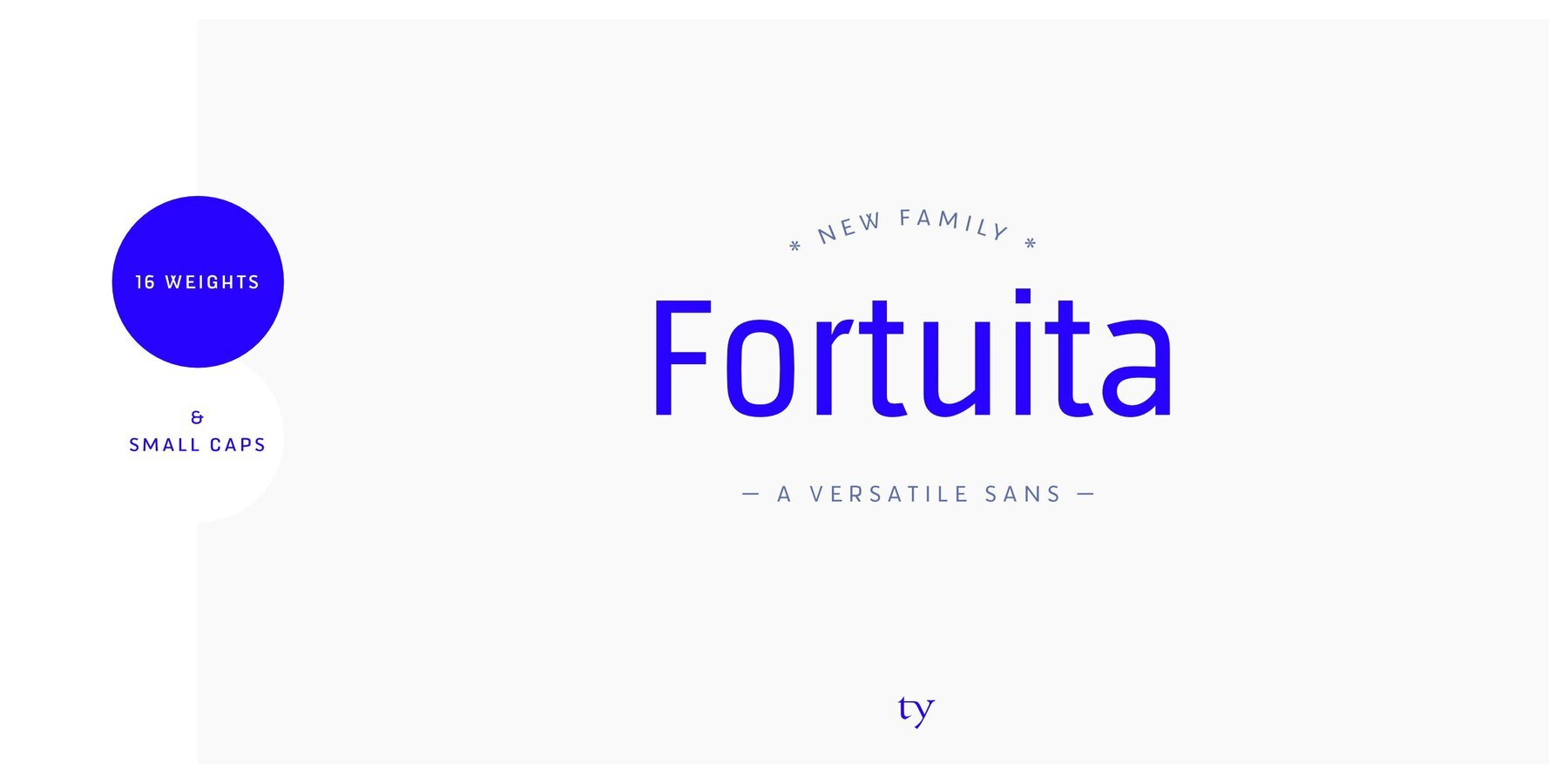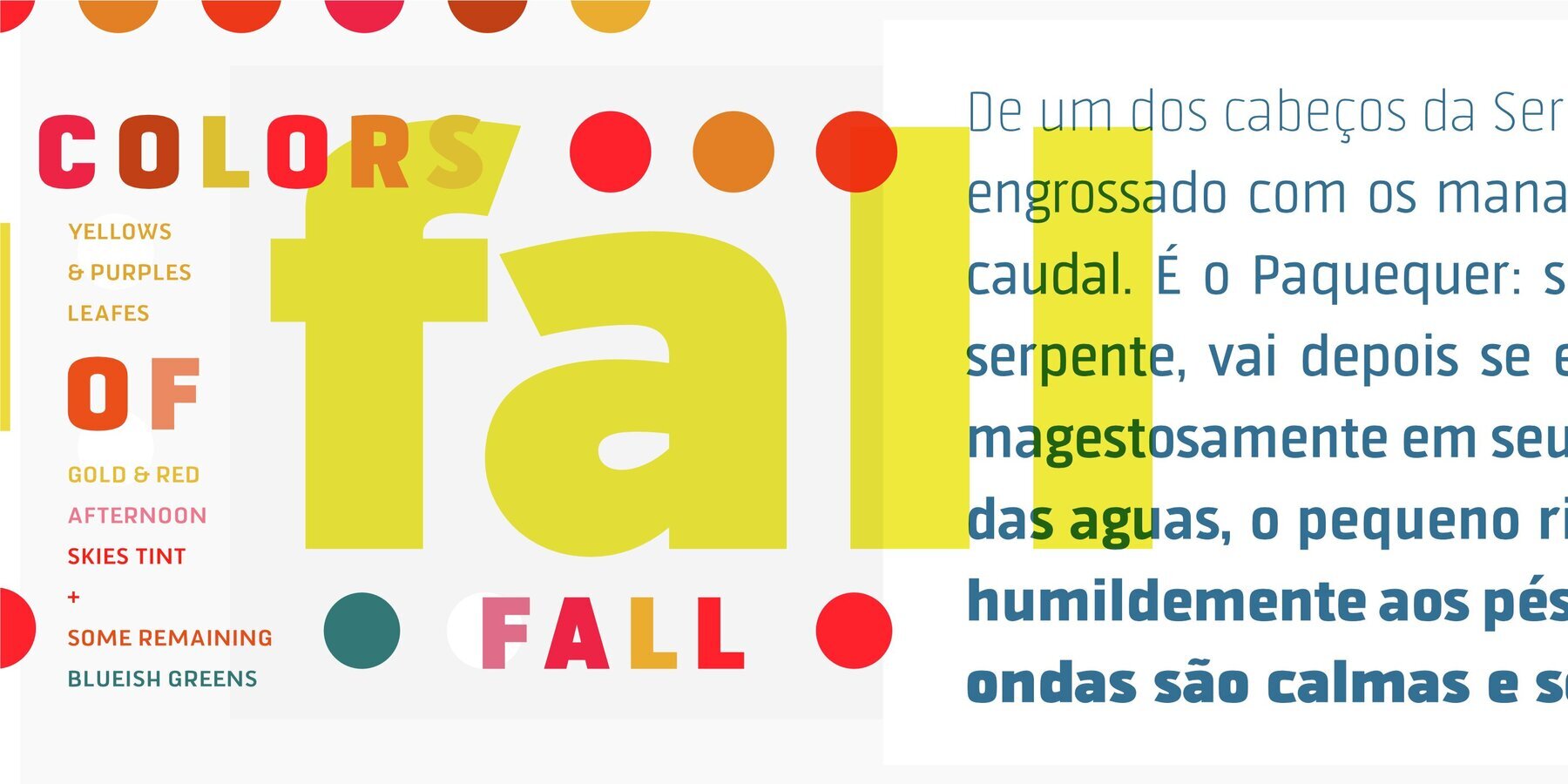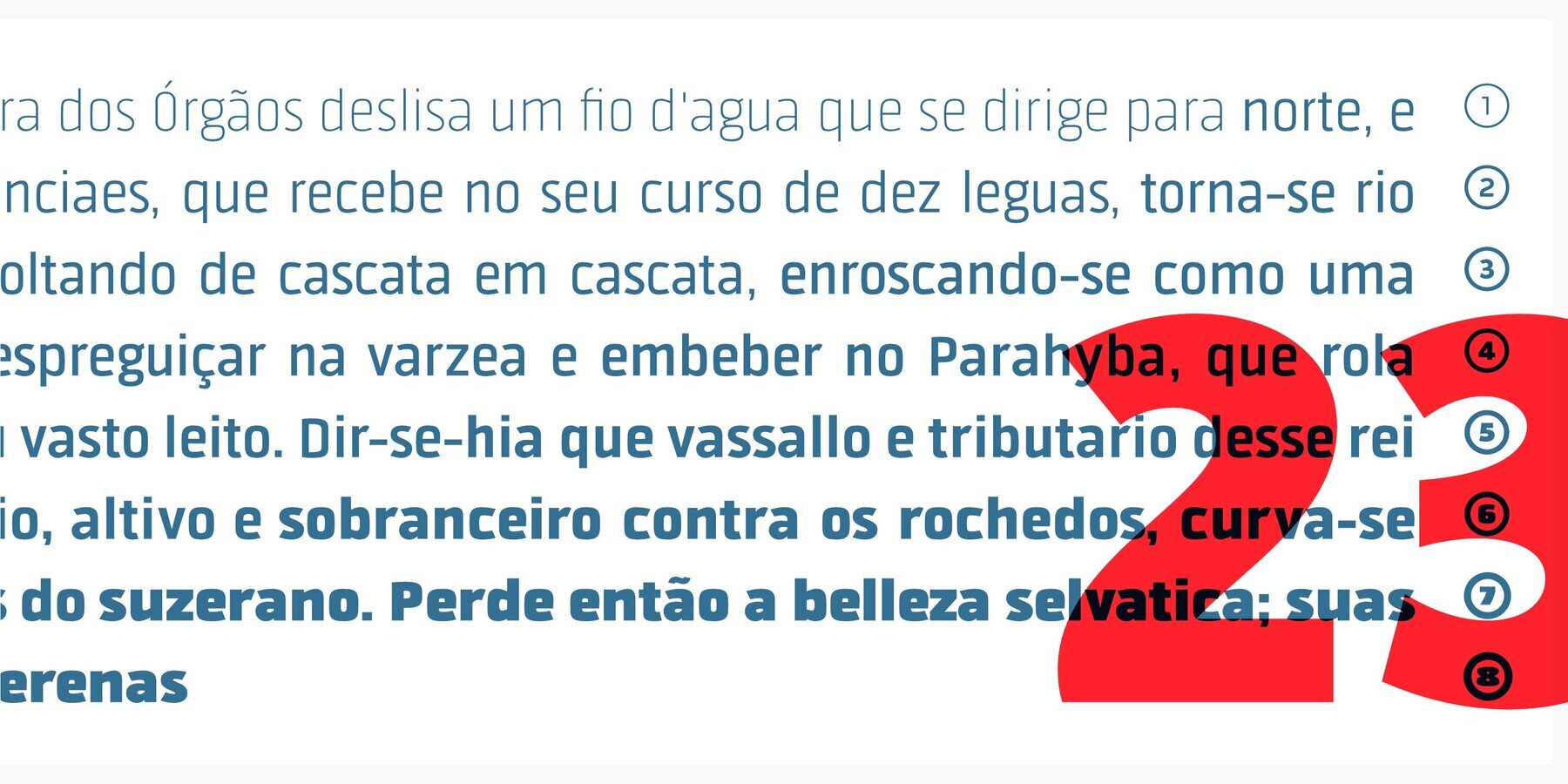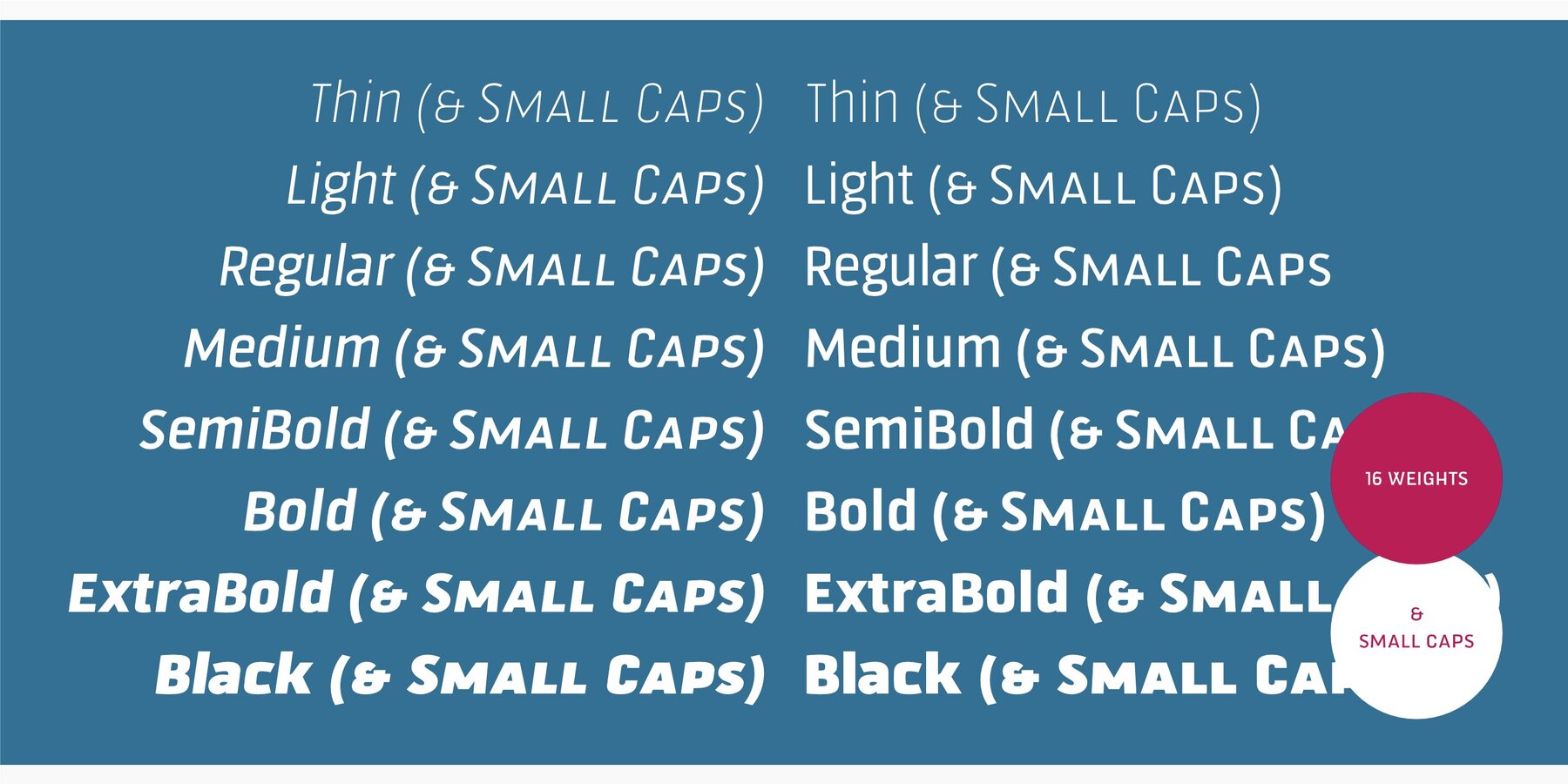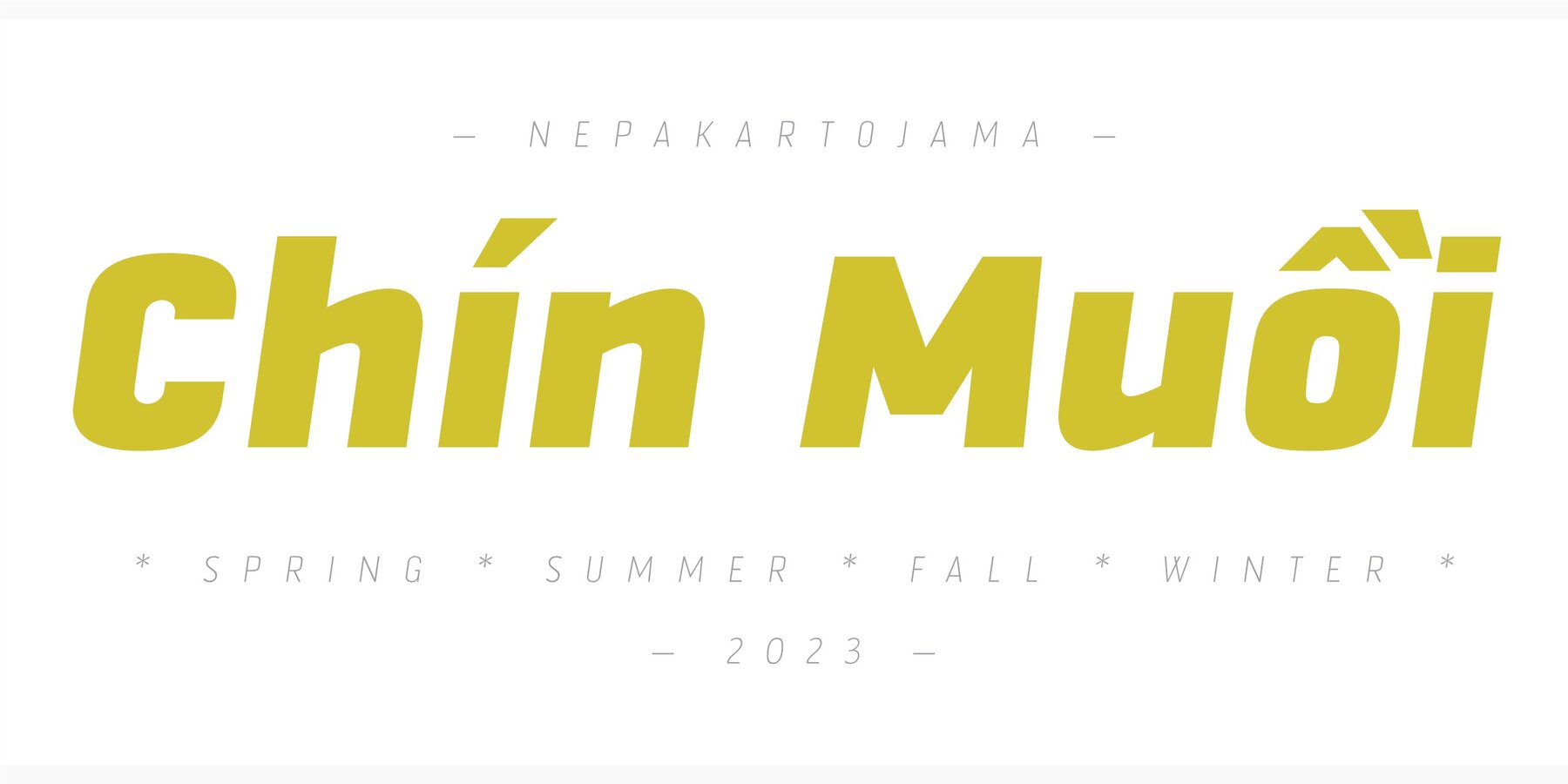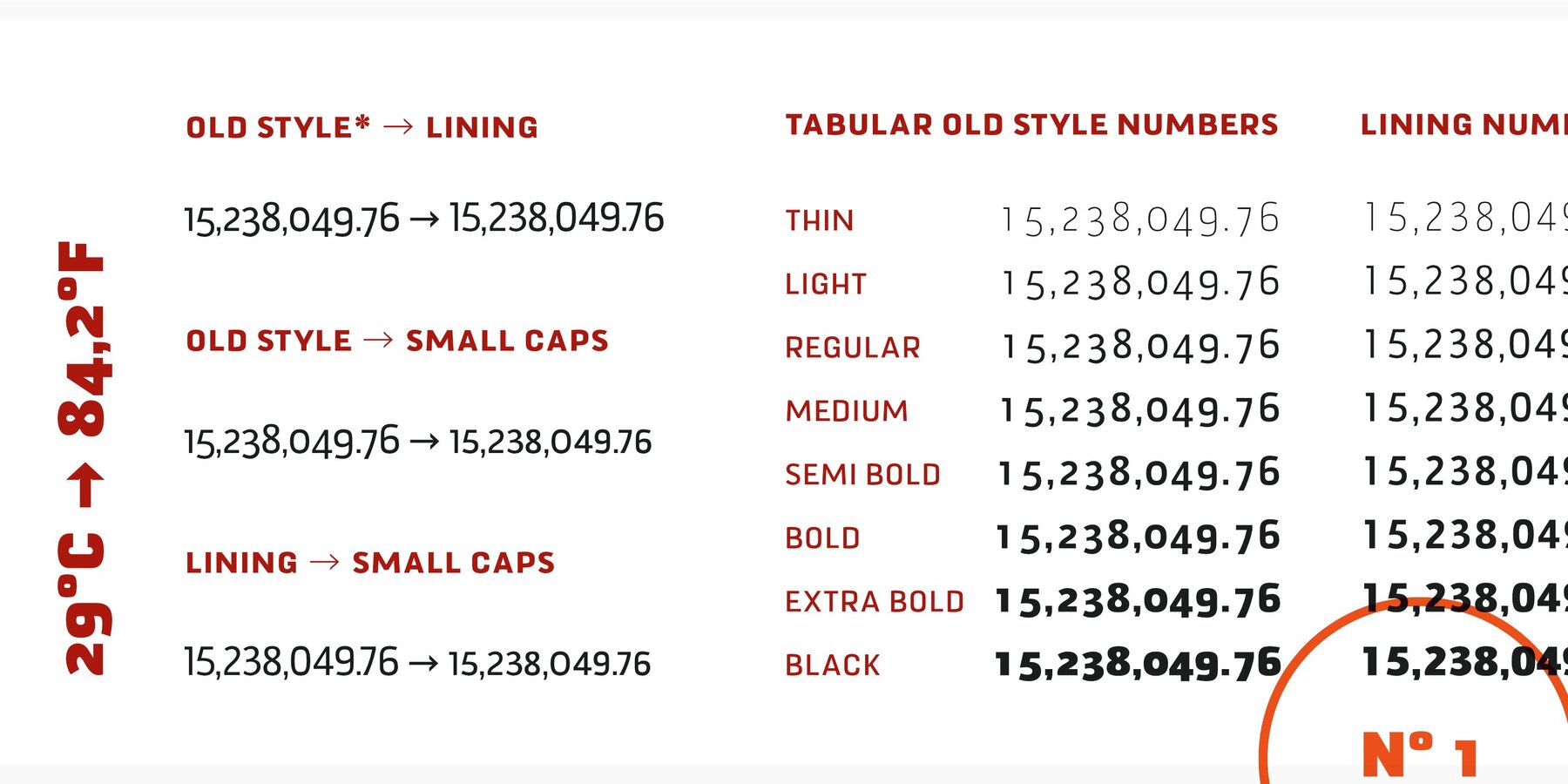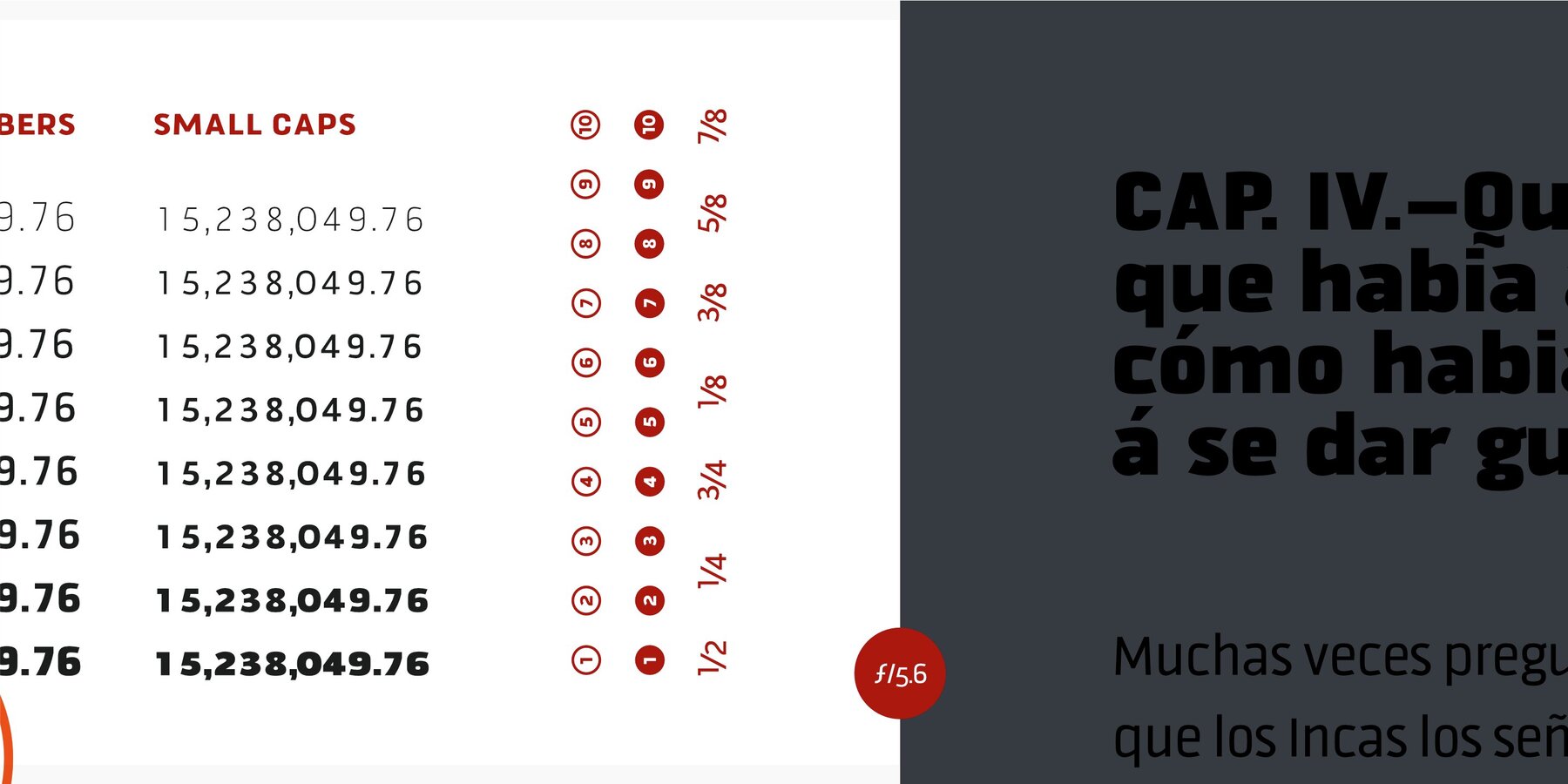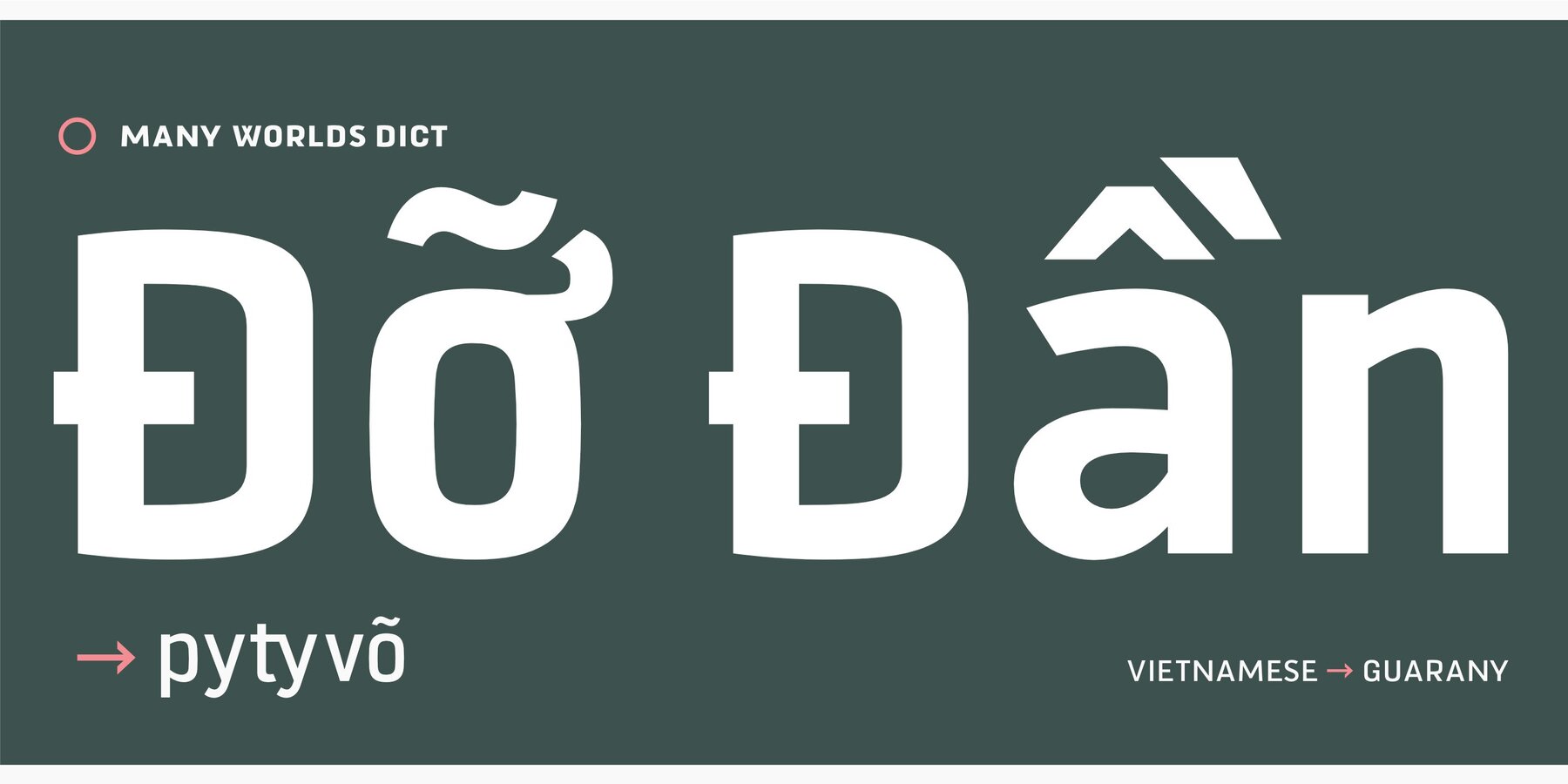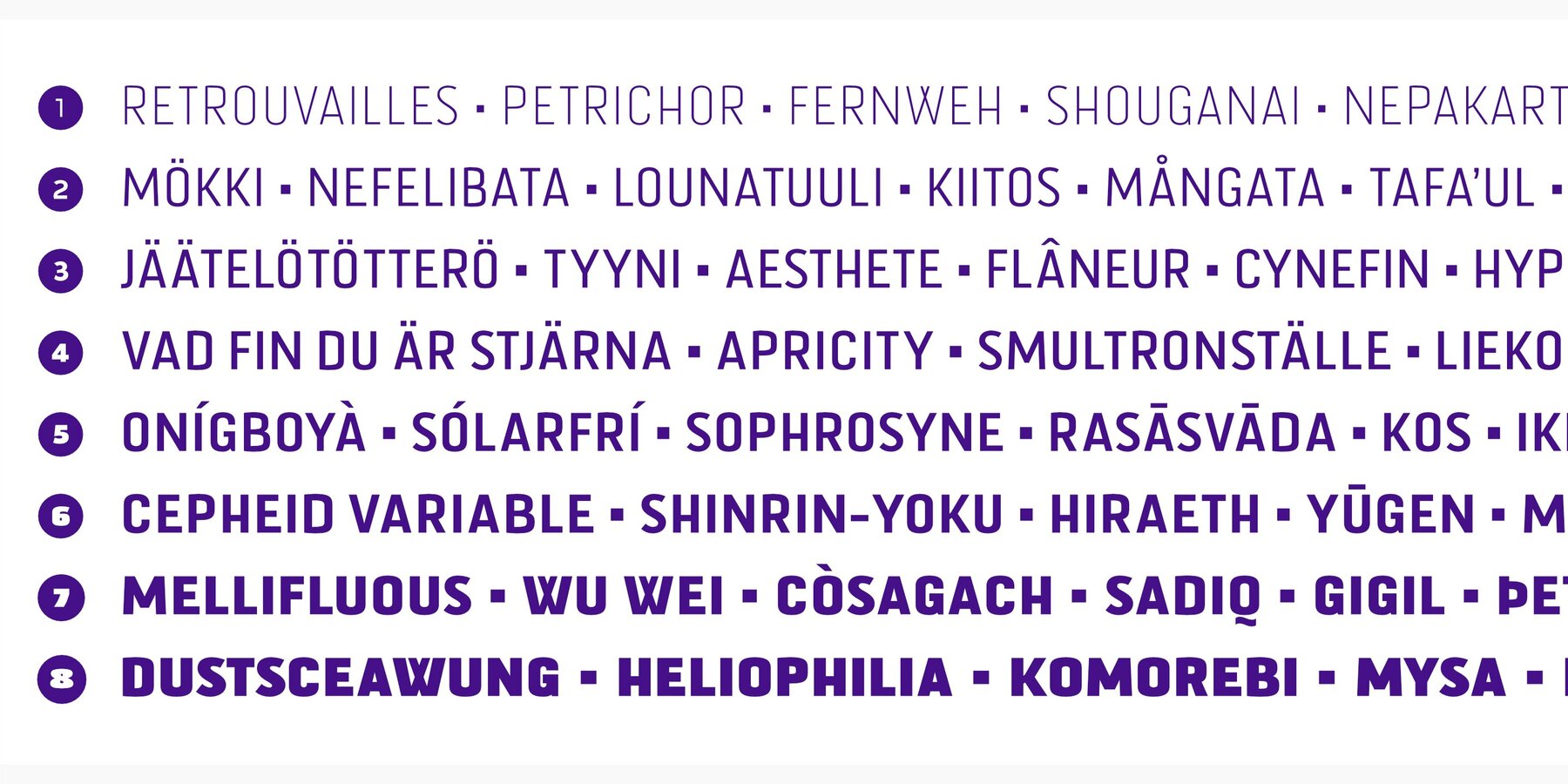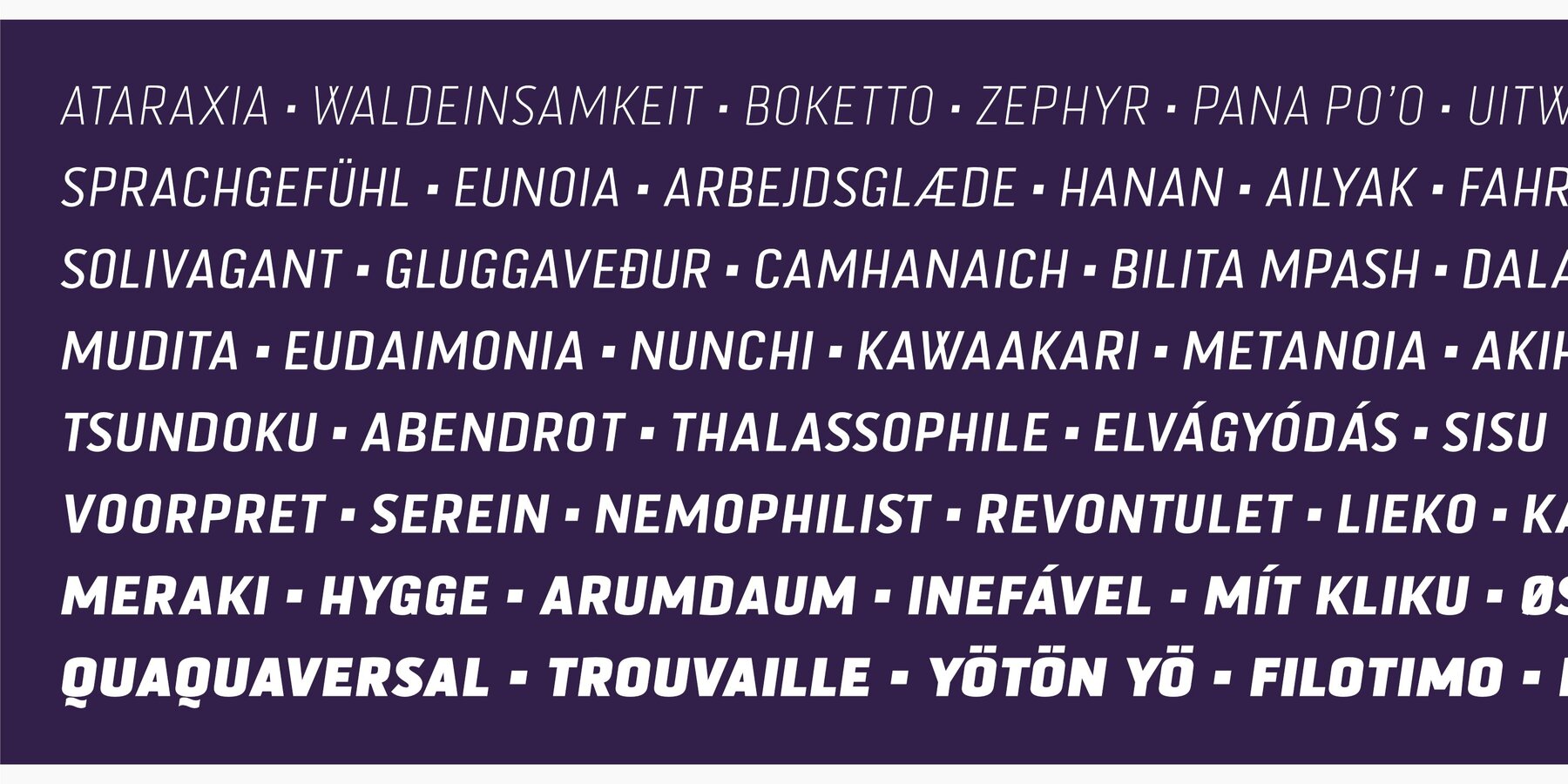
Fortuita Font
Fortuita is a versatile sans serif font ideal for both text and display uses. The name reflects its origin, as it began with logo sketches that organically developed into a full type family over the span of eight years. The family exhibits a unique personality in its design, effectively supporting its subject without becoming distracting or diminishing its impact.Fortuita: Versatile Sans Serif with a Distinctive Design
Design Features
Typographic Versatility